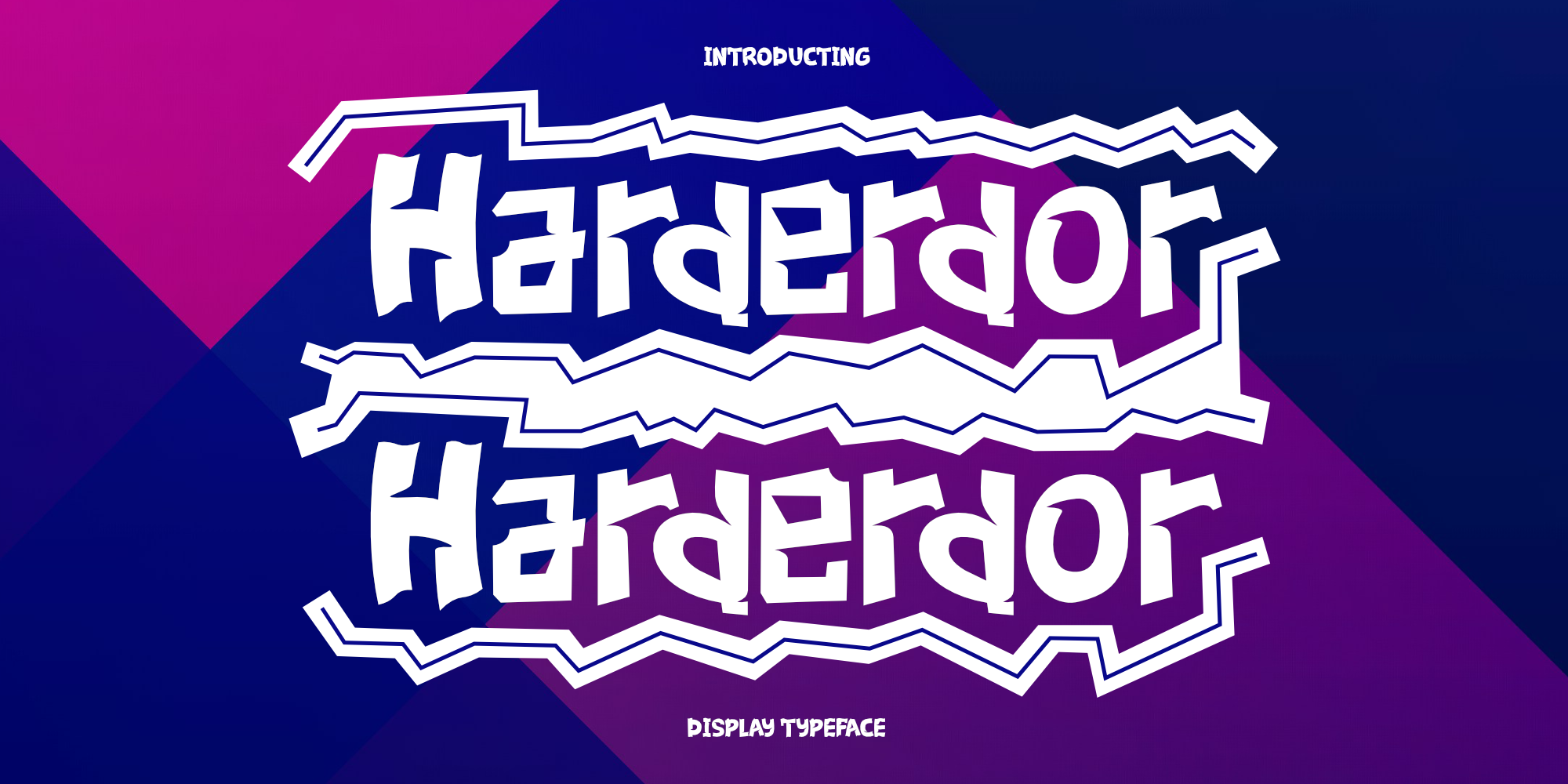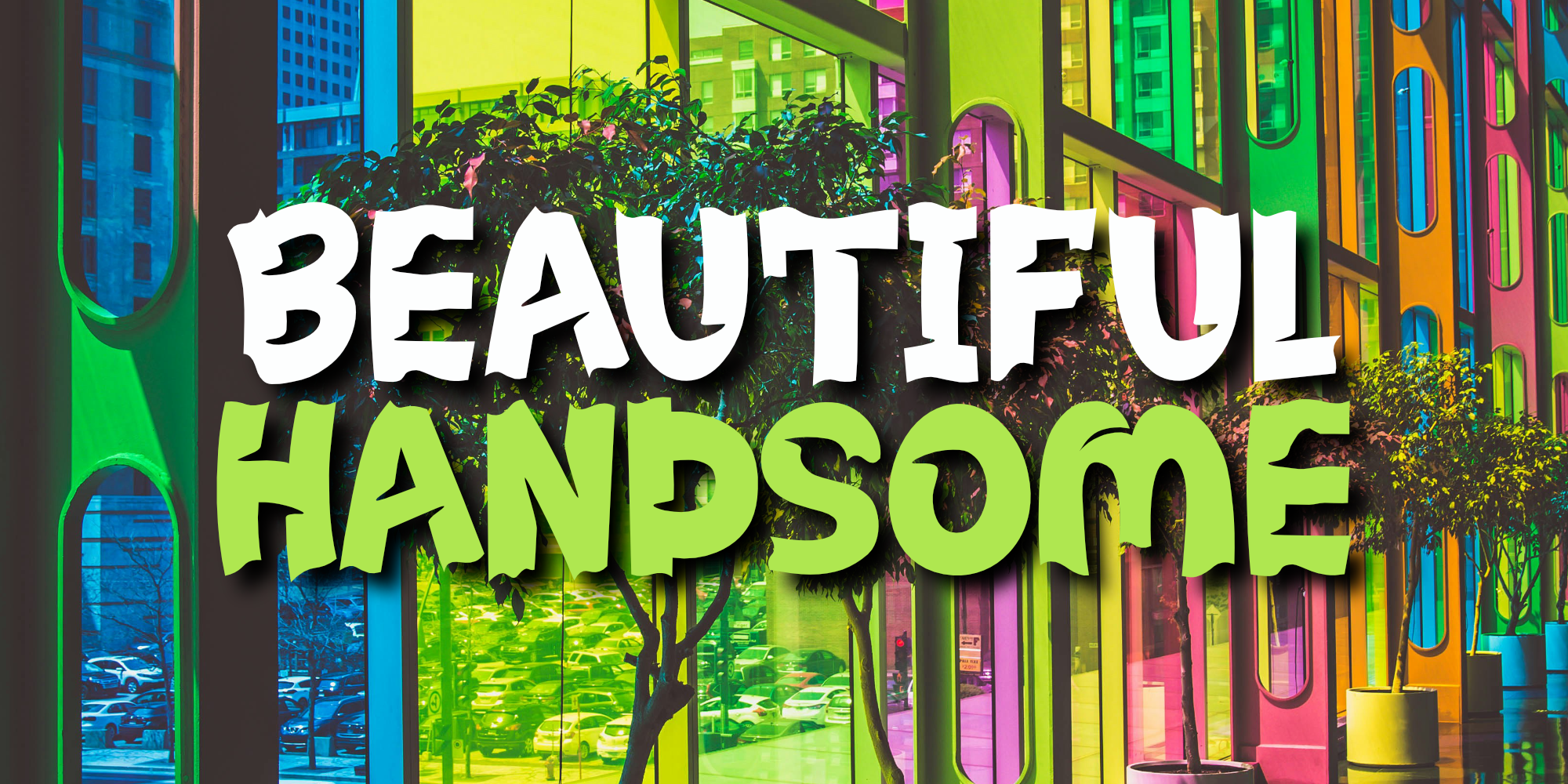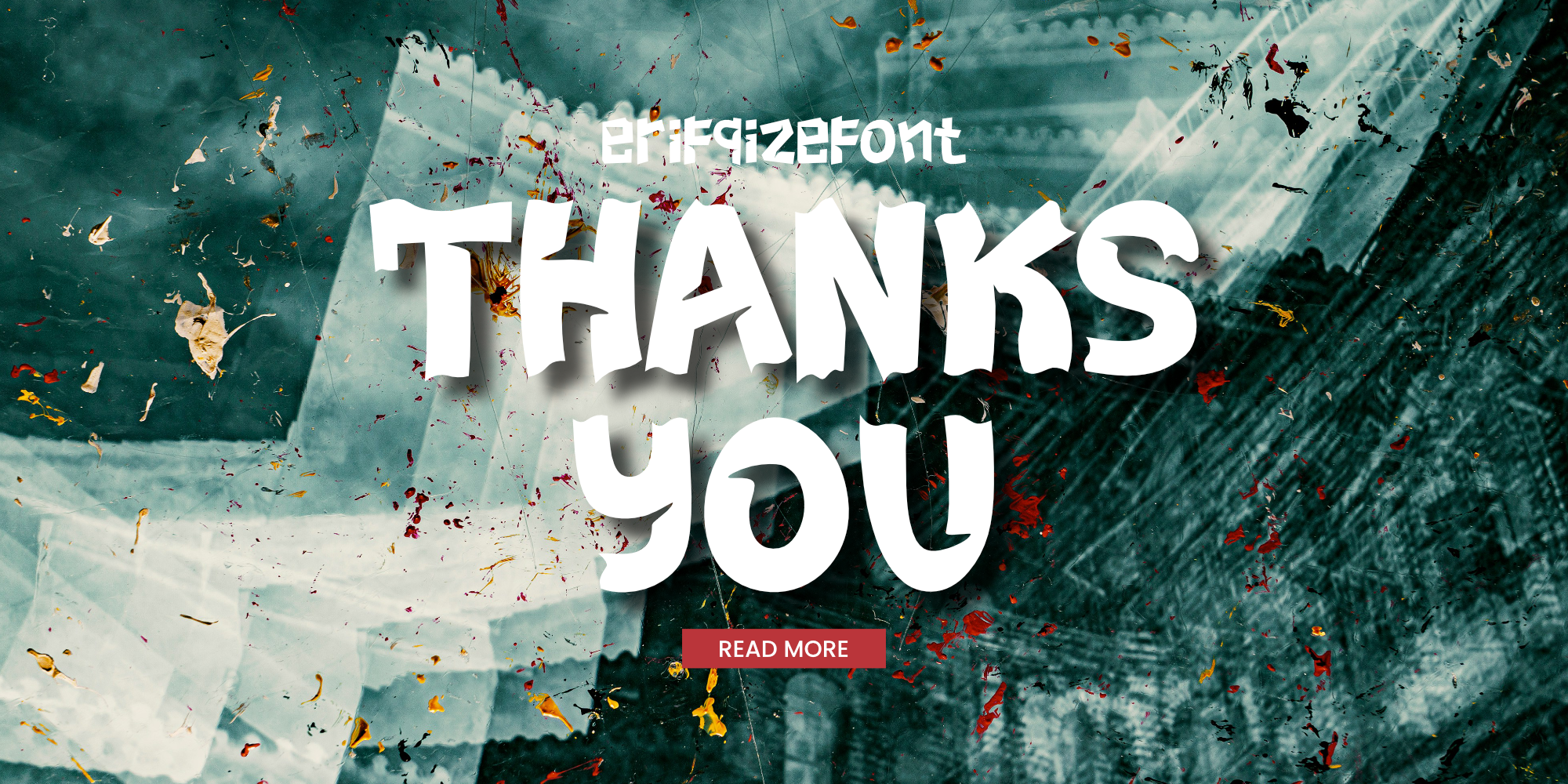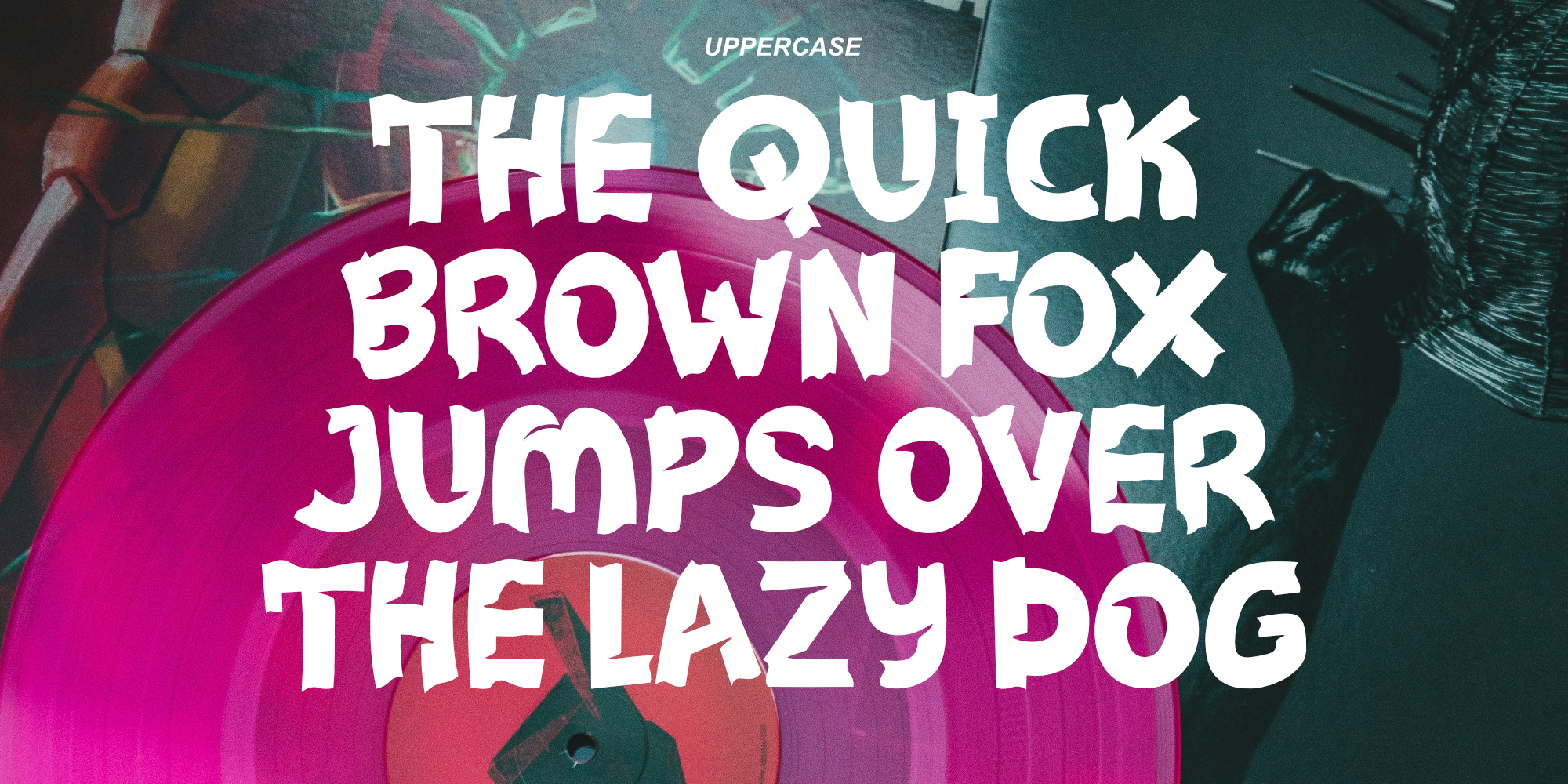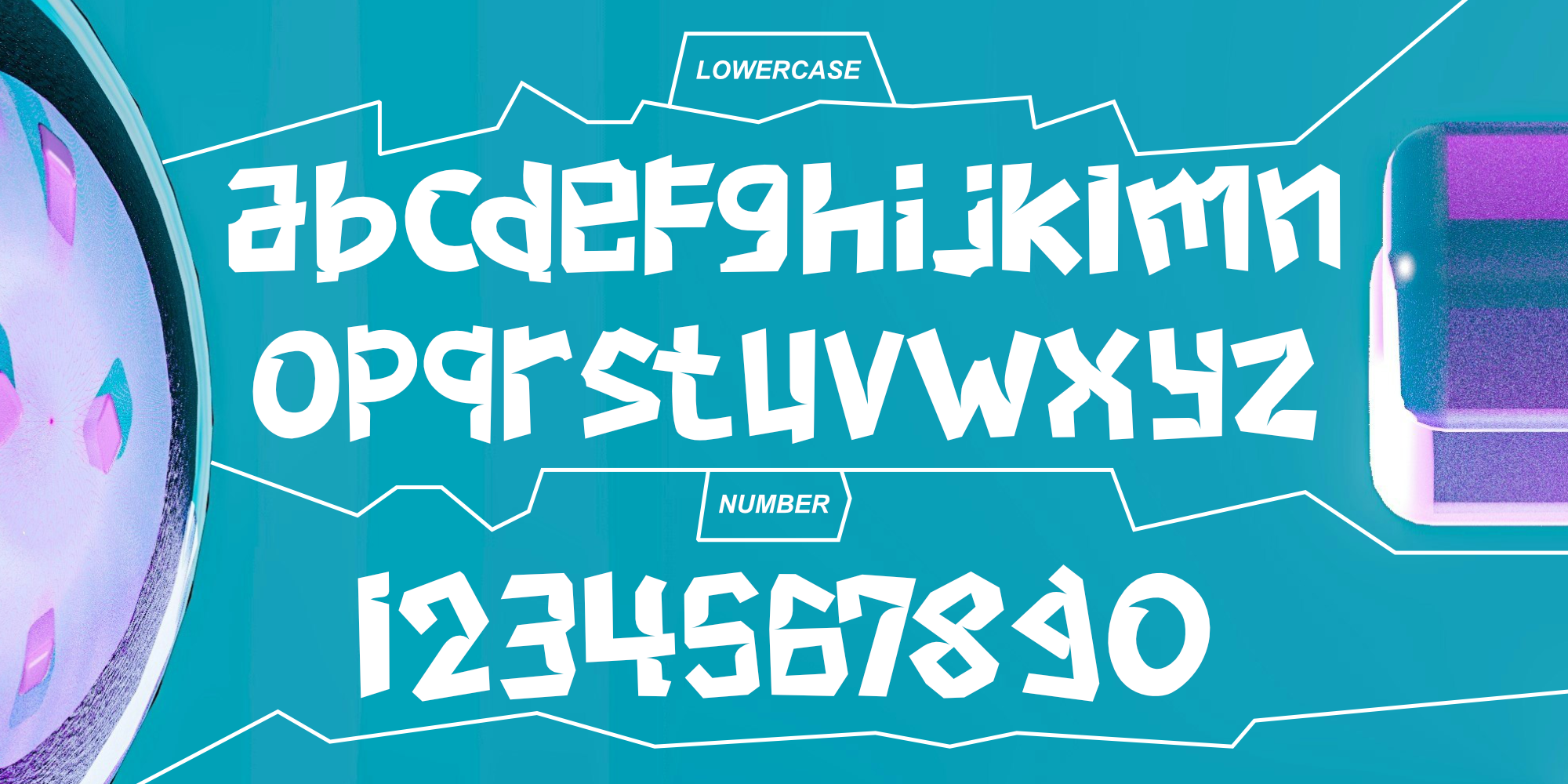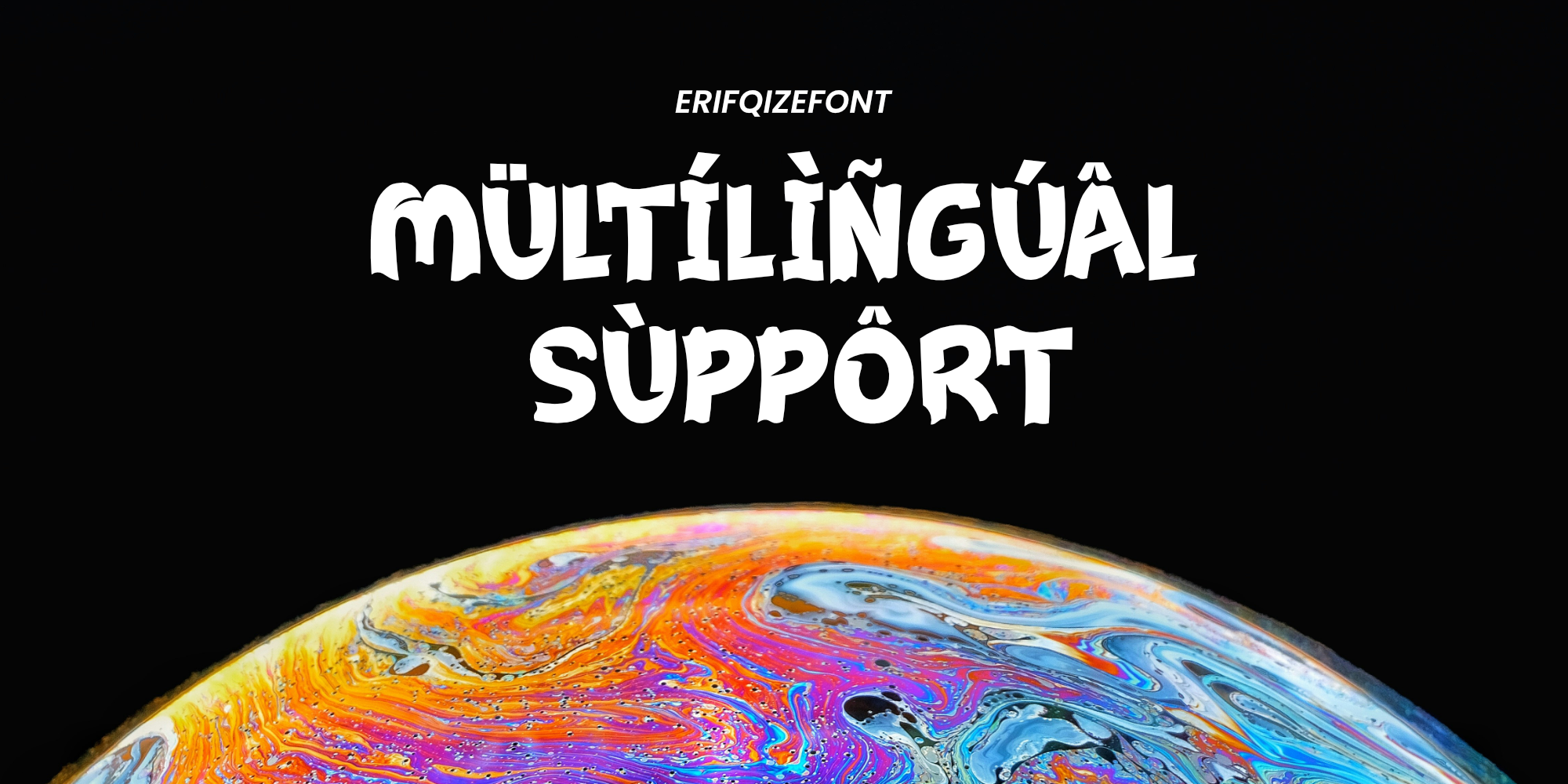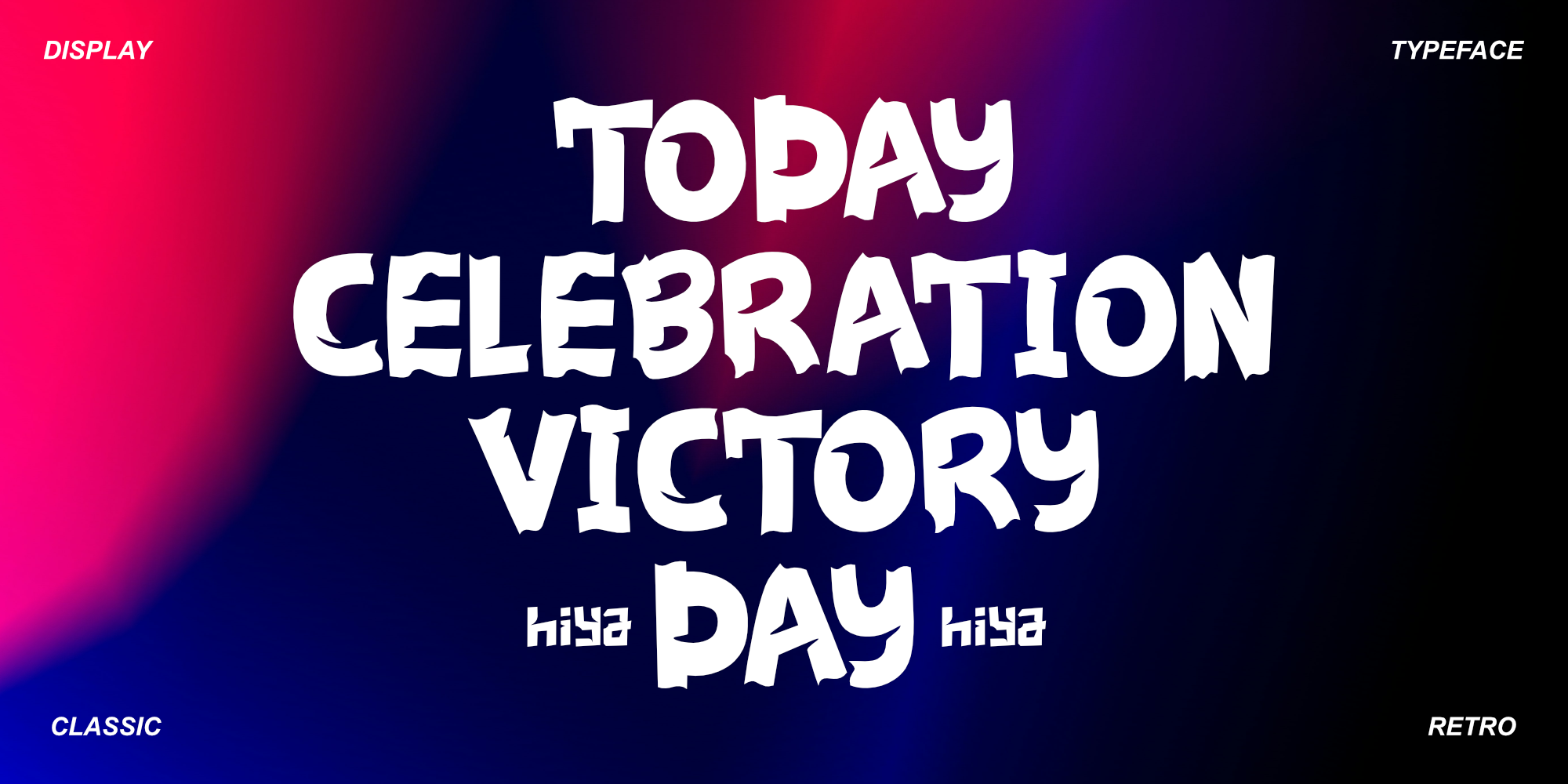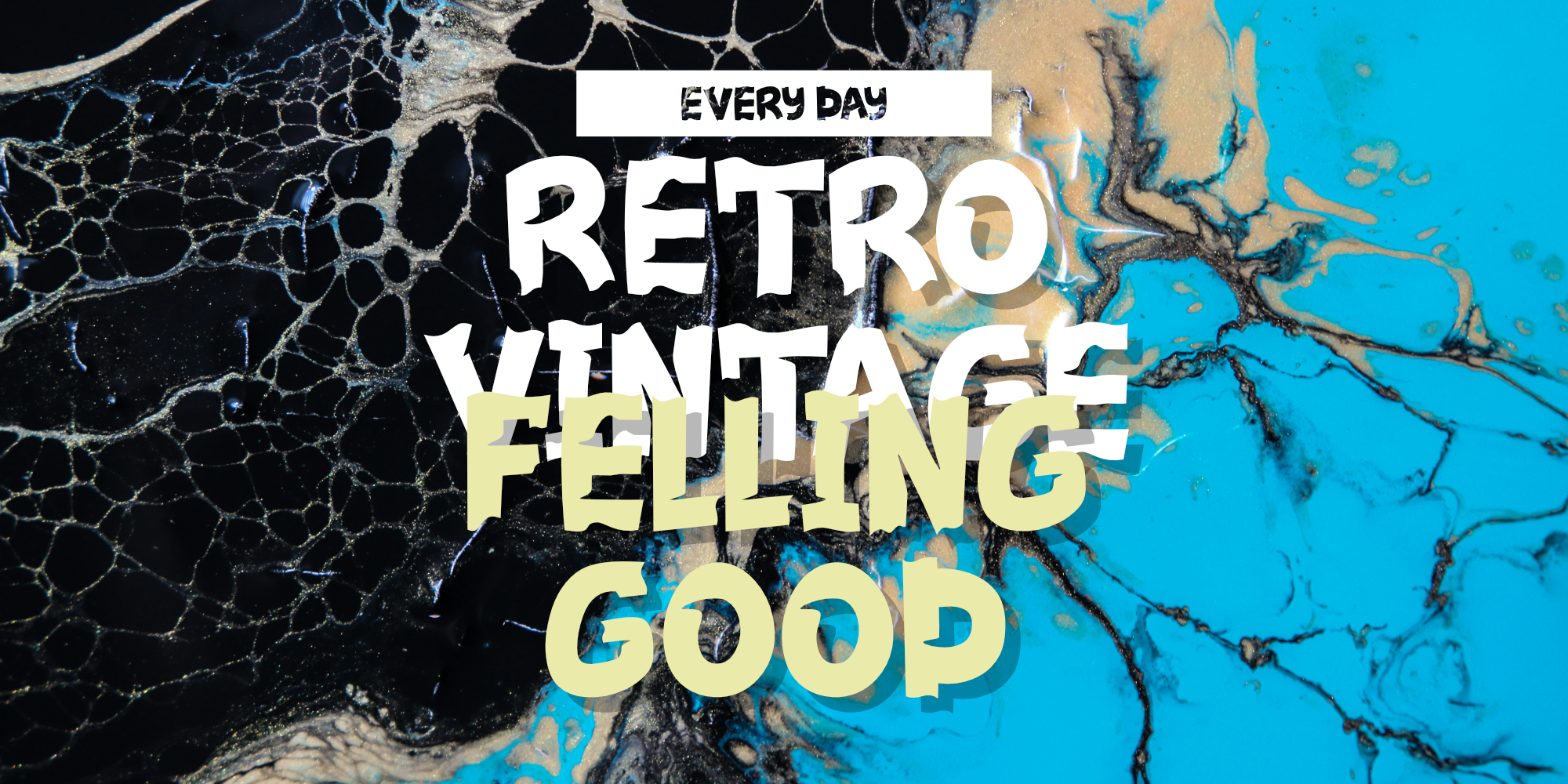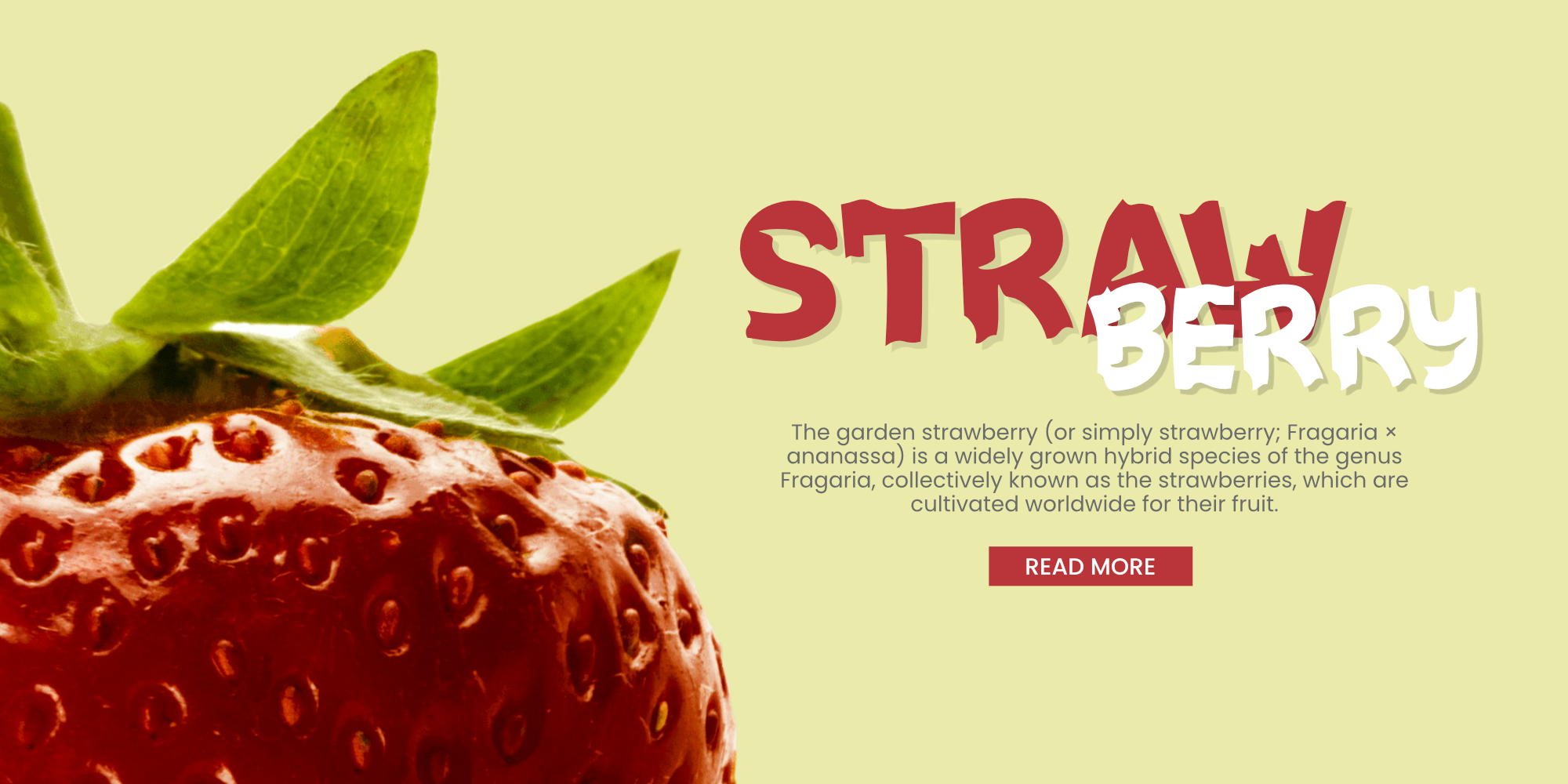
Harderdor
Harderdor – Playful Cartoon Display Font
Harderdor is a bold and cheerful sans-serif display font that radiates fun and imagination. With its playful cartoon-inspired style and strong, expressive letterforms, this font is designed to capture attention and spark joy.
Perfect for posters, comic titles, kids’ projects, and any design that needs a dose of humor and happiness, Harderdor brings a lively, energetic spirit to every word. Its bold shapes make it highly legible and visually striking, while its friendly character invites creativity in every use.